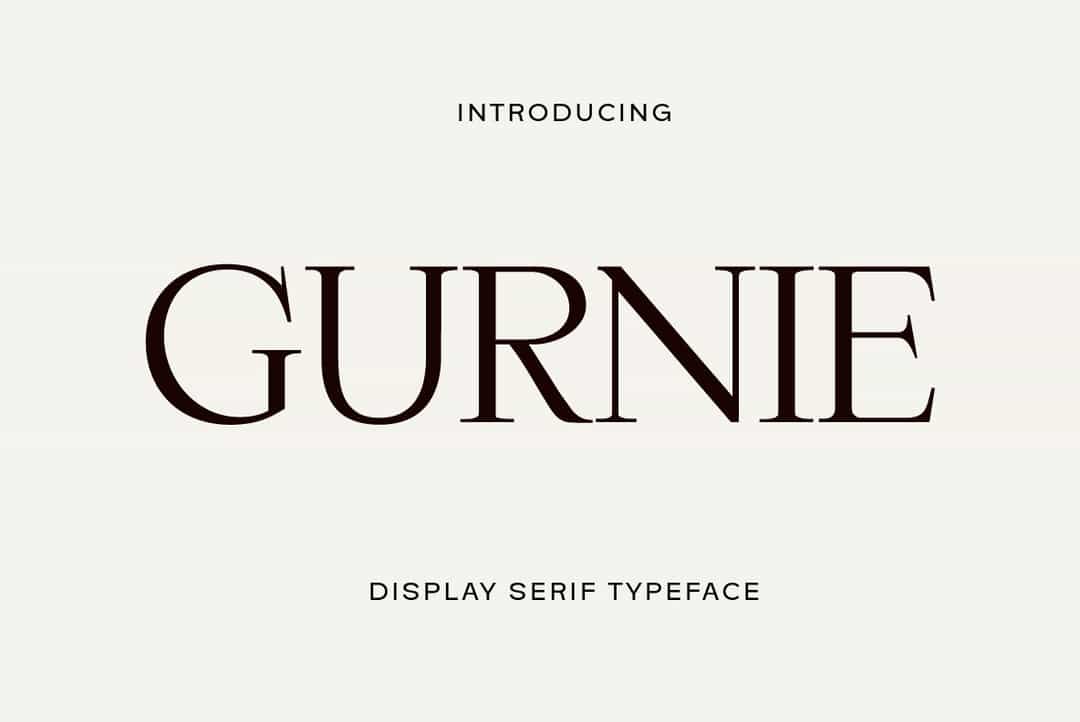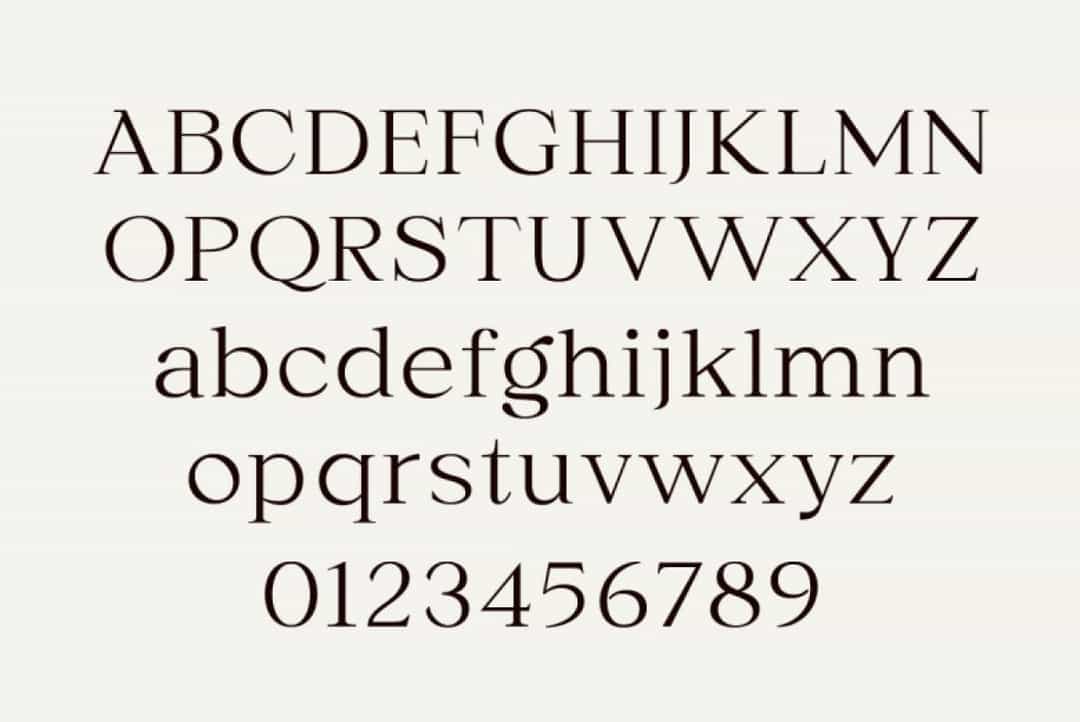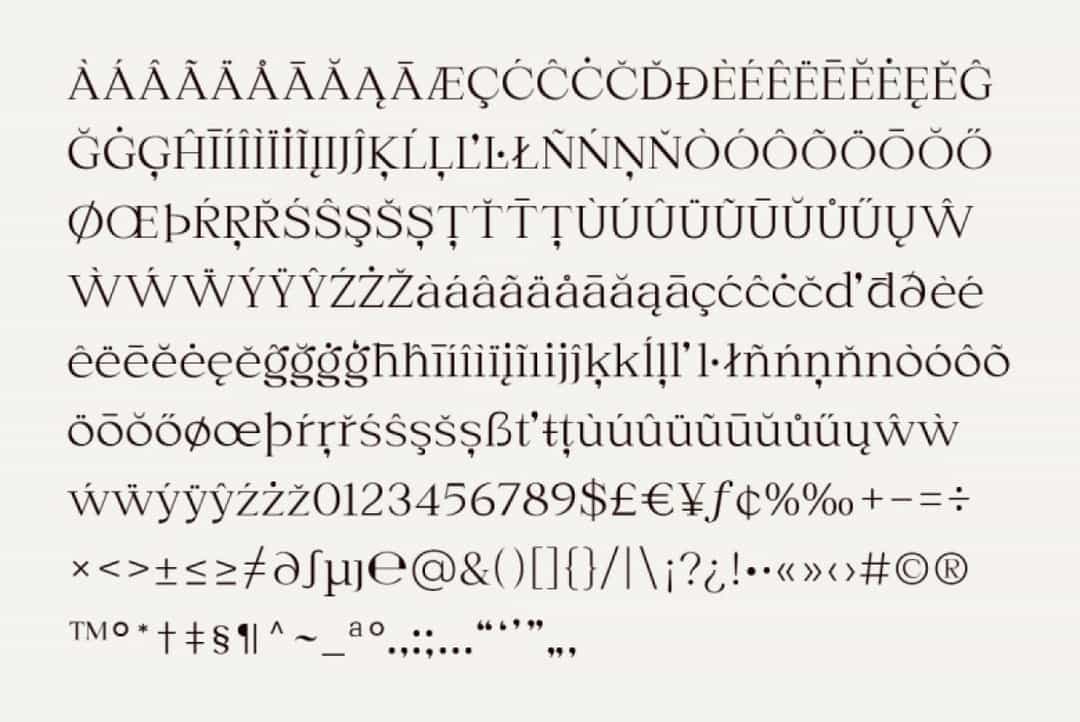
Gurnie is an elegant and proportional serif typeface, making it perfect for headlines newspapers magazines or design projects requiring classic yet modern appeal. This font gives each letter its own distinct flair while remaining classic yet contemporary at once.